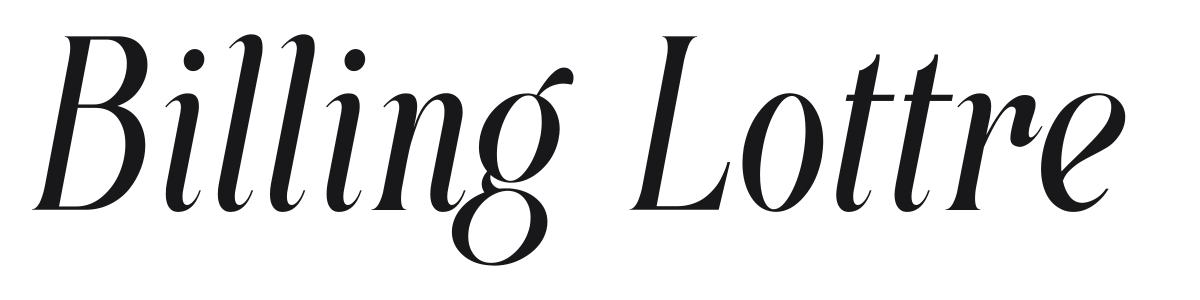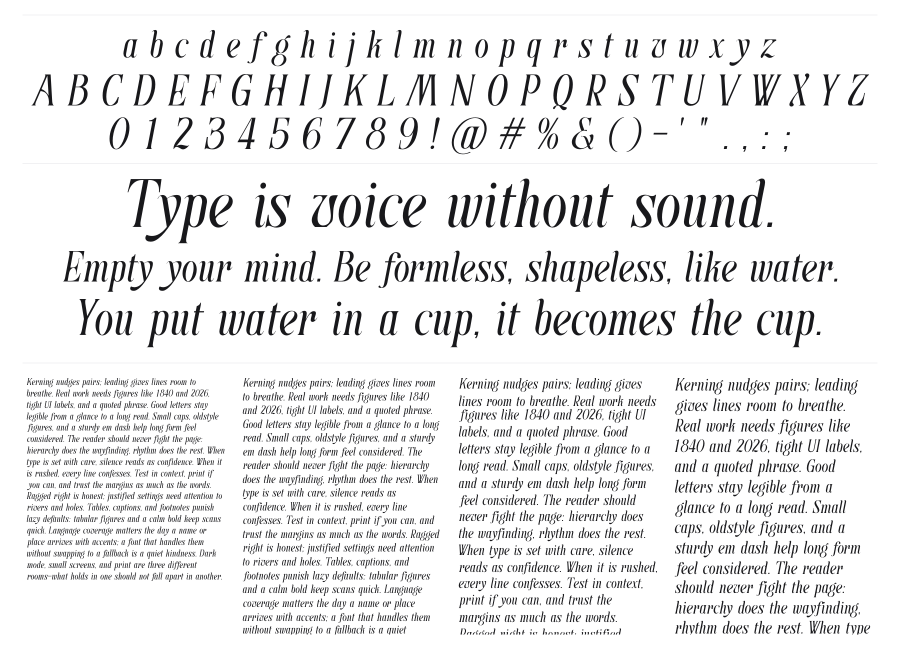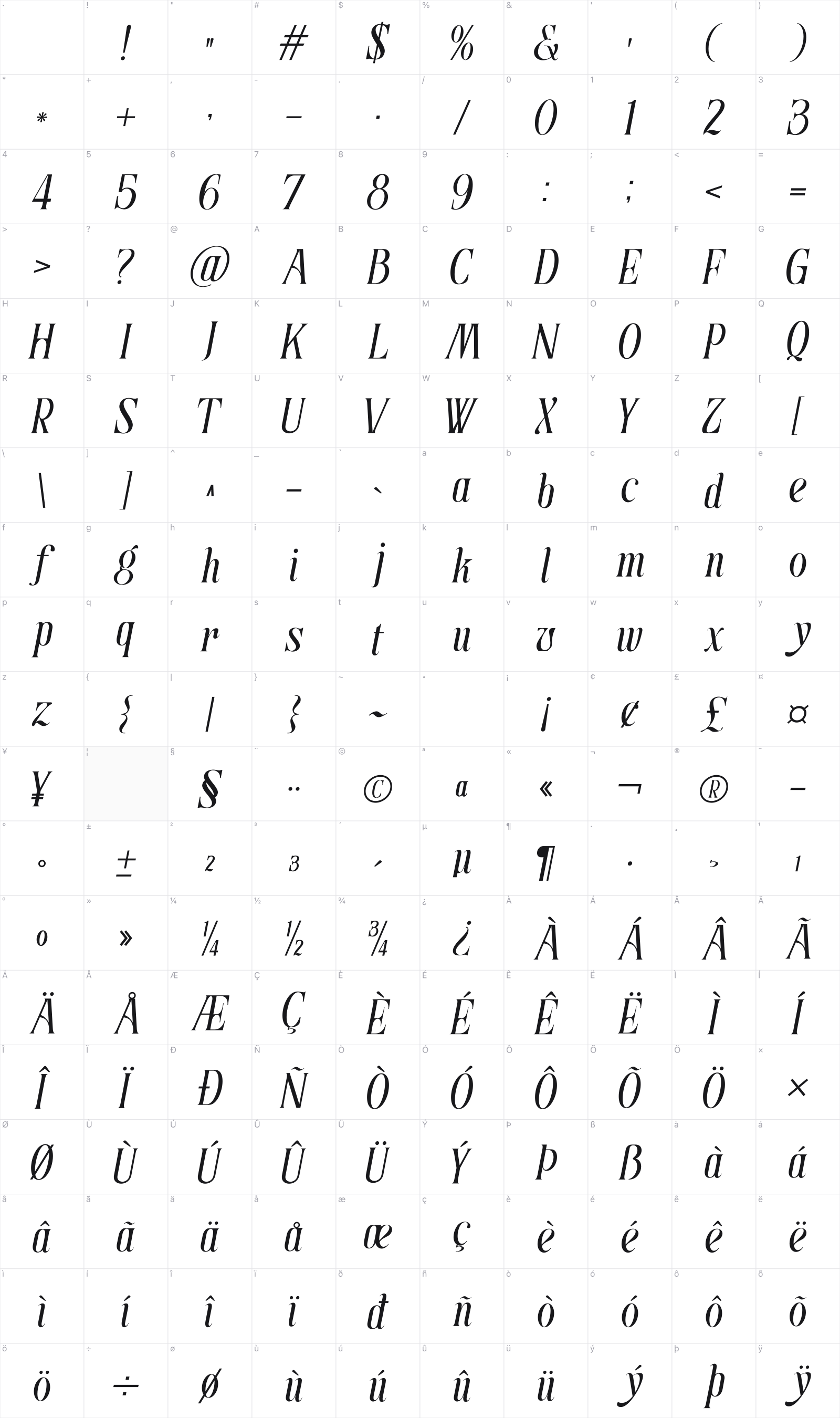
Billing Lottre
Billing Lottre is a condensed italic modern serif with extreme stroke contrast and sharp unbracketed serifs rooted in the Didone tradition. The tall, compressed proportions and dramatic thin-to-thick transitions give it an inherently high-fashion sensibility. It commands attention at headline sizes and brings editorial authority to branding and poster work.